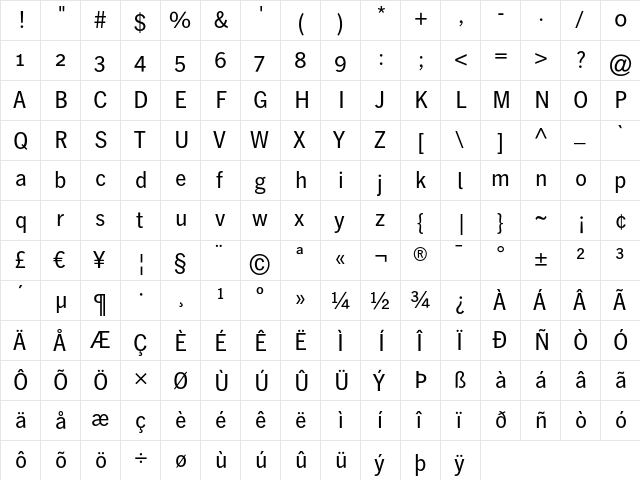
HeidelbergGothicOsFRegular Regular
Design Context for HeidelbergGothicOsFRegular Typeface
HeidelbergGothicOsFRegular has the quiet confidence of well-executed sans-serif typography: versatile, unobtrusive, and dependable at any size.
Font Pairing: Works well alongside a characterful serif or display font that can carry the expressive load while HeidelbergGothicOsFRegular handles the functional copy.
Pro Tip: Use HeidelbergGothicOsFRegular for UI labels, navigation, and short-form body copy where clean legibility is the priority.